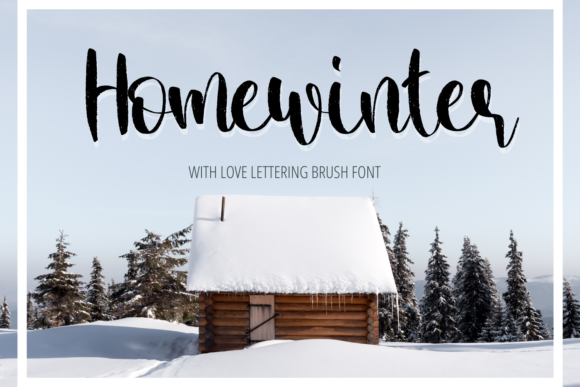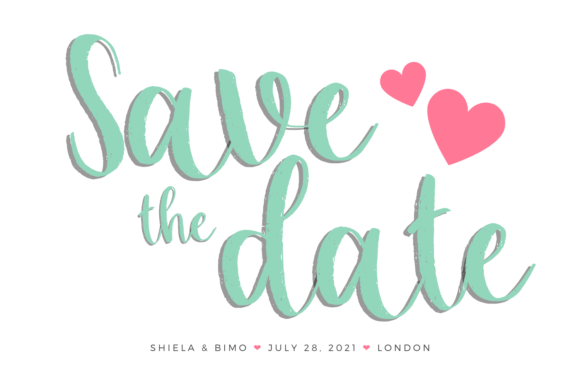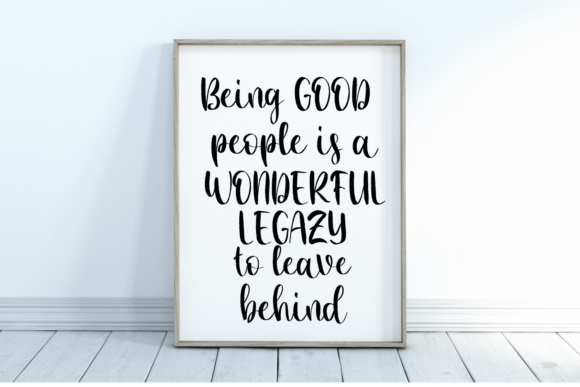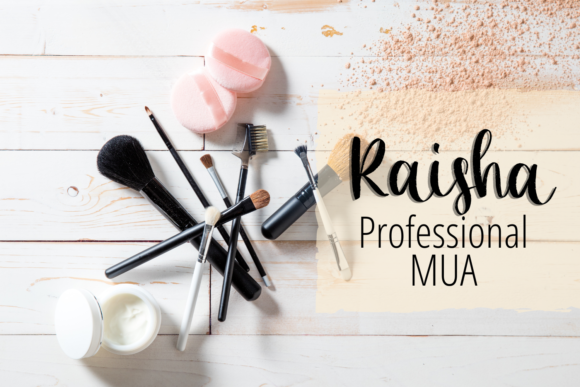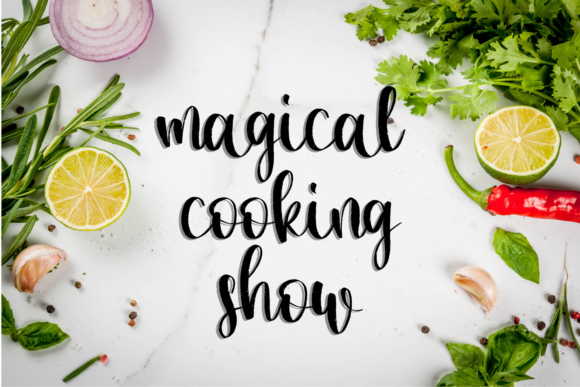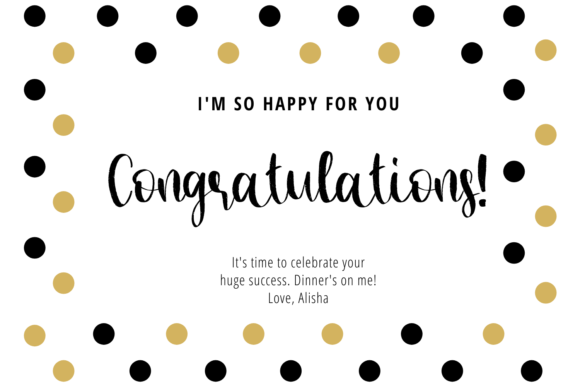
A Warm Welcome for Your Winter Designs
As the snowflakes start to fall and the fireplace crackles to life, you can’t help but feel the magic of the season. It’s the perfect time to cozy up with a warm cup of coffee, grab your favorite design tools, and let the creativity flow. For designers, there’s nothing quite like the thrill of crafting a new project that captures the essence of winter.
Enter Home Winter Font, a sweet and delicate handwritten font designed to become your new go-to for all your winter-themed projects. This enchanted font is perfect for adding a touch of warmth and whimsy to your designs, from festive holiday cards to cozy winter wonderland scenes. With its brushed texture and gentle curves, Home Winter Font is sure to become a staple in your design arsenal.
Whether you’re a seasoned pro or just starting out, Home Winter Font is a valuable addition to any designer’s toolkit. Its versatility and charm make it an ideal choice for a wide range of projects, from branding and advertising to digital art and more.
Home Winter Font Key Features
- Font Family: Home Winter Font is a unique, hand-drawn font designed to evoke the feeling of winter. It includes multiple weights and styles to suit various design needs.
- Unique Characteristics: The font’s hand-drawn design and varied line weights give it a distinctive, organic feel that sets it apart from more traditional fonts.
Home Winter Font Review
When I first laid eyes on the Home Winter Font, I was immediately struck by its unique blend of rustic charm and winter wonder ✨. The font’s intricate details and texture evoke a cozy cabin atmosphere, perfect for holiday-themed projects or winter-inspired designs. The font is also highly legible, making it a great choice for longer blocks of text.
Some of the things that I particularly appreciate about the Home Winter Font include:
- Its versatility: The font can be used for a wide range of projects, from invitations to product labels.
- Its unique aesthetic: The font’s blend of rustic and whimsical elements sets it apart from more generic winter fonts.
- Its high level of detail: The font’s intricate texture and ornaments add a level of depth and interest that’s hard to find in other fonts.
However, I do have a few concerns about the font’s limitations:
- Its limited character set: The font may not include all the characters you need for certain languages or special symbols.
- Its high file size: The font’s intricate details and ornaments can make it a bit large, which may impact loading times or file storage.
Overall, I think the Home Winter Font is a great choice for designers looking to add a touch of winter wonder to their projects. While it may have some limitations, its unique aesthetic and high level of detail make it a standout choice for the right projects.
Getting the Most Out of Home Winter Font
For optimal results, use the Home Winter Font in combination with winter-themed graphics and colors.
Experiment with different font sizes and styles to create a visually appealing design.
Use the font in headings and titles to draw attention to important information.
The Home Winter Font is ideal for:
Winter-themed marketing materials (e.g. flyers, brochures)
Seasonal social media posts and graphics
Winter-themed party invitations and decorations